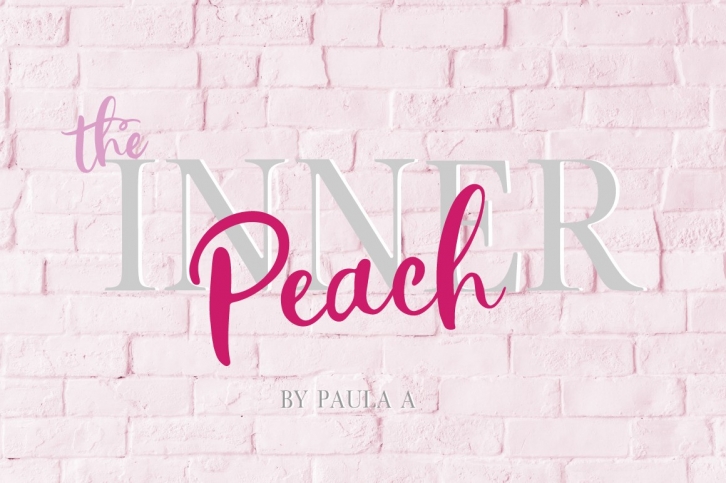
The Inner Peach is a beautiful font that was designed by Paula Type. It's a great choice for designers and creatives who need such a font. It was released on July 10, 2018 and the file size is 10.22 MB. The Inner Peach may give a more youthful, expressive and casual look to your project. It is a very beautiful, refined, elegant, and high-quality font.